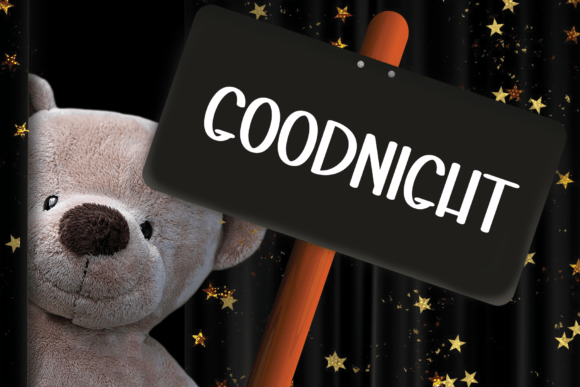
Unleash Your Creativity with Black Book Font: The Ultimate Display Font for Bold Designs
In the world of typography, fonts play a crucial role in conveying the tone and personality of a brand or design. When it comes to making a statement, a bold and quirky display font is often the way to go. This is where the Black Book font comes in – a unique and eye-catching typeface that brings a punch of personality to every letter.
What is Black Book Font?
Black Book is a bold, quirky display font that is perfect for attention-grabbing headlines, street-style branding, posters, apparel, and urban-themed designs. Its tall, rounded characters and playful construction make it a standout in the world of typography. The font has a casual handwritten feel, with stylized curves and unexpected letter endings that give it a raw, expressive energy.
Key Features of Black Book Font
- Bold and Quirky Design: The Black Book font features a bold and quirky design that is perfect for making a statement.
- Tall and Rounded Characters: The font’s tall and rounded characters give it a unique and playful look.
- Multilingual Support: The Black Book font features multilingual support, making it perfect for designs that require text in multiple languages.
- Punctuation and Numerals: The font includes punctuation and numerals, making it a versatile choice for a wide range of designs.
- Uppercase and Lowercase Sets: The Black Book font includes both uppercase and lowercase sets, giving designers a wide range of options.
Uses of Black Book Font
The Black Book font is perfect for a wide range of designs, including:
- Attention-Grabbing Headlines: The font’s bold and quirky design makes it perfect for attention-grabbing headlines.
- Street-Style Branding: The font’s urban and edgy look makes it perfect for street-style branding.
- Posters and Flyers: The font’s bold and playful design makes it perfect for posters and flyers.
- Apparel and Merchandise: The font’s casual and handwritten feel makes it perfect for apparel and merchandise.
- Urban-Themed Designs: The font’s urban and edgy look makes it perfect for urban-themed designs.
Why Choose Black Book Font?
So why choose the Black Book font for your next design project? Here are just a few reasons:
- Unique and Eye-Catching Design: The font’s bold and quirky design makes it a standout in the world of typography.
- Versatile and Flexible: The font’s multilingual support, punctuation, and numerals make it a versatile choice for a wide range of designs.
- Perfect for Creative Projects: The font’s urban and edgy look makes it perfect for creative projects, such as music, art, and fashion designs.
- Easy to Read and Understand: Despite its bold and quirky design, the font is easy to read and understand, making it perfect for designs that require clear communication.
Tips for Using Black Book Font
Here are a few tips for using the Black Book font in your next design project:
- Use it for Headlines and Titles: The font’s bold and quirky design makes it perfect for headlines and titles.
- Pair it with Other Fonts: The font’s unique design makes it perfect for pairing with other fonts to create a unique and eye-catching look.
- Experiment with Colors and Textures: The font’s bold and playful design makes it perfect for experimenting with different colors and textures.
- Keep it Simple and Clean: Despite its bold and quirky design, the font is easy to read and understand, so keep your design simple and clean to ensure clear communication.
In conclusion, the Black Book font is a bold and quirky display font that brings a punch of personality to every letter. Its unique and eye-catching design makes it perfect for attention-grabbing headlines, street-style branding, posters, apparel, and urban-themed designs. With its multilingual support, punctuation, and numerals, the font is versatile and flexible, making it perfect for a wide range of designs. So why choose a boring and generic font when you can unleash your creativity with the Black Book font?